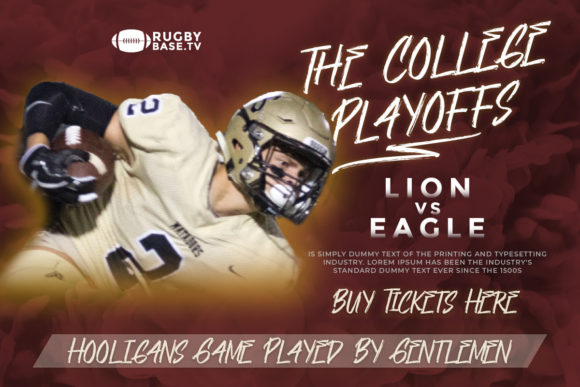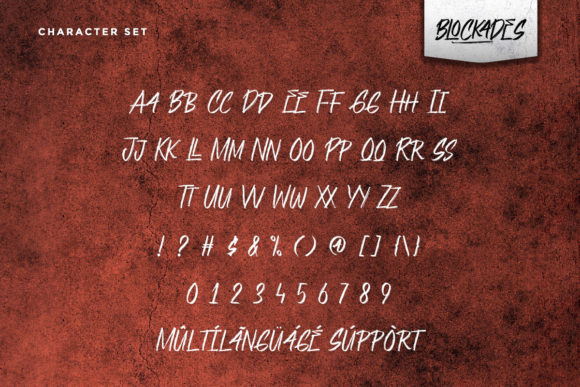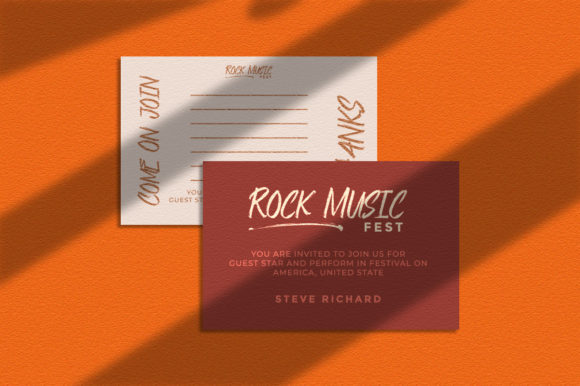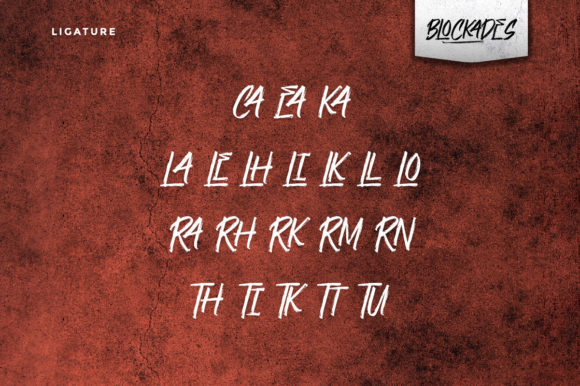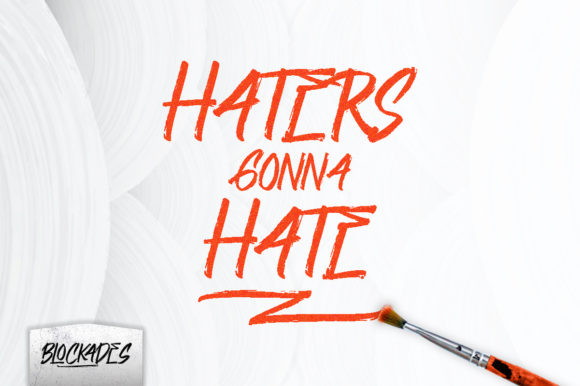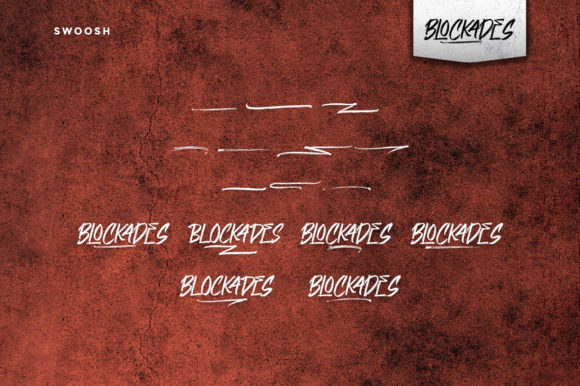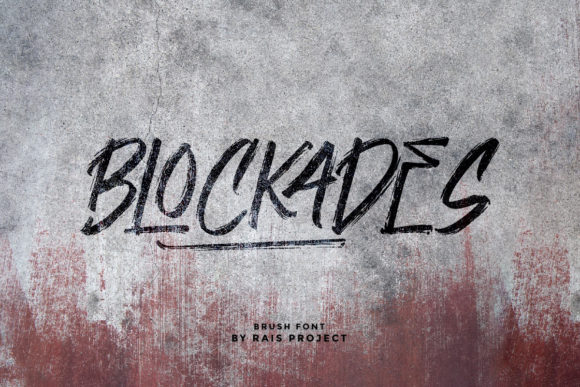
Introducing Blockades Font: Elevate Your Designs with a Unique Brush Style
Are you tired of using the same old fonts in your designs? Look no further! Blockades Font is here to revolutionize the way you create. This stunning brush-style display font is perfect for designers and crafters who want to add a touch of realism and uniqueness to their work. In this article, we’ll dive into the features and benefits of Blockades Font, and explore how it can take your designs to the next level.
A Unique Brush Style Display Font
Blockades Font boasts a distinctive brush style that’s sure to make your designs stand out. Its bold and expressive strokes give it a hand-crafted feel, perfect for creating eye-catching titles, headings, and graphics. Whether you’re working on a logo, poster, or social media graphic, Blockades Font is sure to make a statement.
One of the standout features of Blockades Font is its PUA (Private Use Area) encoding. This means that you can access all of the glyphs and swashes with ease, giving you unparalleled creative control. With PUA encoding, you can effortlessly navigate the font’s extensive character set, including alternative letters, ligatures, and decorative elements.
Blockades Font offers a world of creative possibilities. Use it to:
• Create stunning titles and headings for your blog posts, articles, and social media graphics
• Design eye-catching logos and branding materials that showcase your unique style
• Develop beautiful posters, flyers, and brochures that grab attention
• Enhance your digital products, such as printables, planners, and journals
Blockades Font is a dream come true for designers and crafters who want to add a personal touch to their work. Whether you’re a seasoned pro or just starting out, this font is easy to use and versatile enough to suit a wide range of projects. With Blockades Font, you can:
• Save time and effort with a font that’s easy to read and works well in a variety of contexts
• Experiment with different styles and combinations to find the perfect look for your project
• Impress your clients and audience with unique and visually stunning designs
Key Features of Blockades Font
• Unique brush-style display font
• PUA encoded for easy access to glyphs and swashes
• Bold and expressive strokes for a hand-crafted feel
• Extensive character set, including alternative letters, ligatures, and decorative elements
• Perfect for titles, headings, logos, posters, and more
In conclusion, Blockades Font is a game-changer for designers and crafters who want to add a touch of realism and uniqueness to their work. With its stunning brush-style display font, PUA encoding, and extensive character set, this font is perfect for a wide range of projects. Whether you’re a seasoned pro or just starting out, Blockades Font is sure to elevate your designs and help you stand out from the crowd.